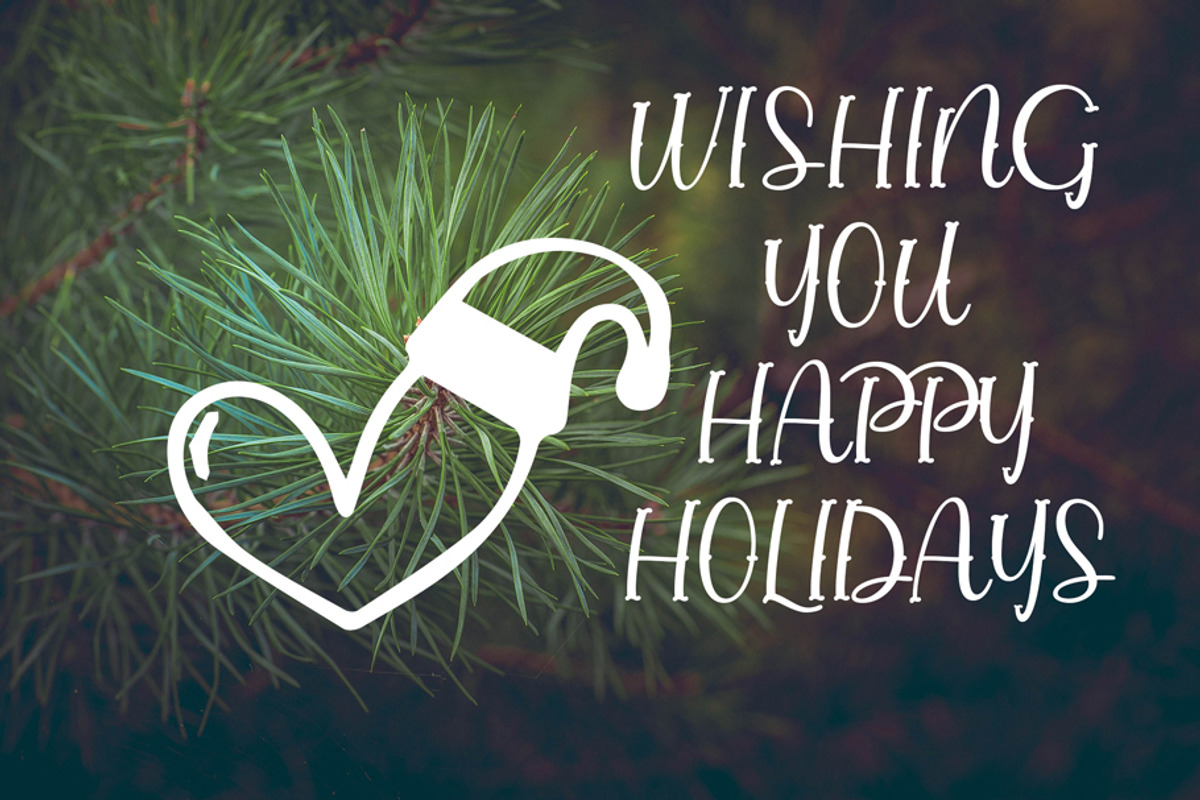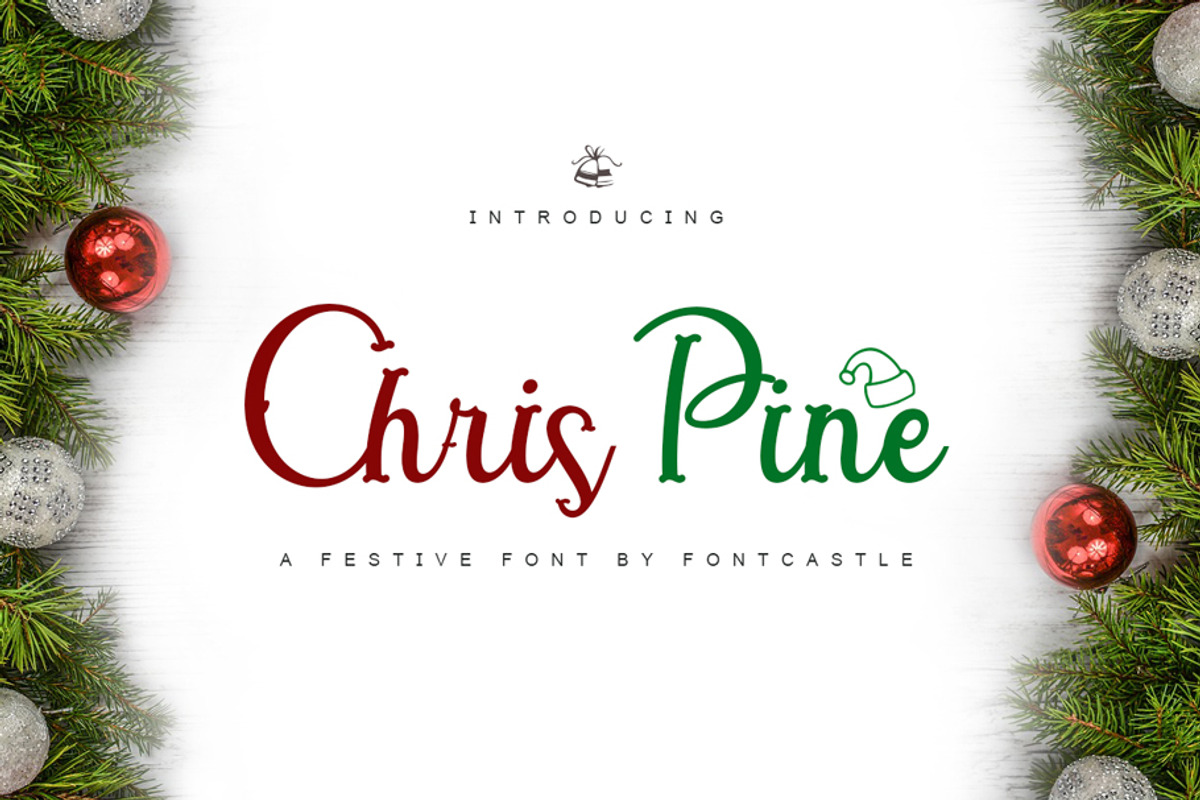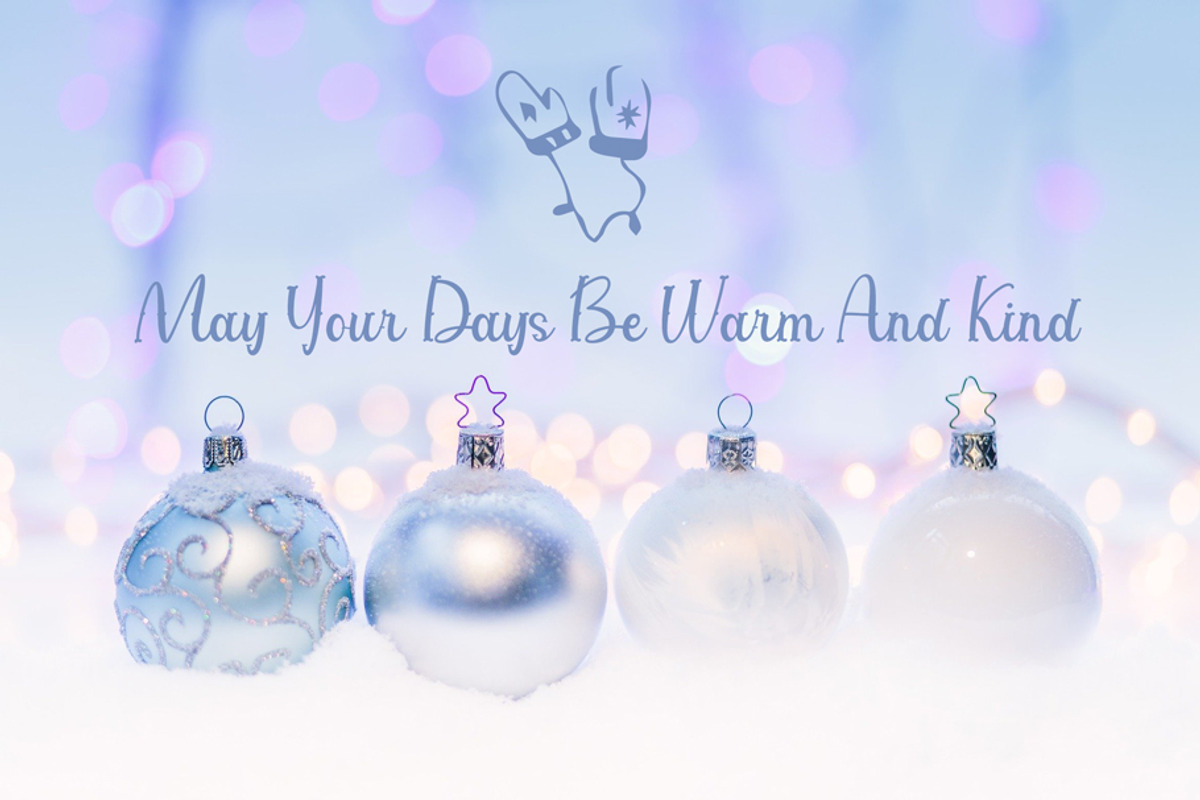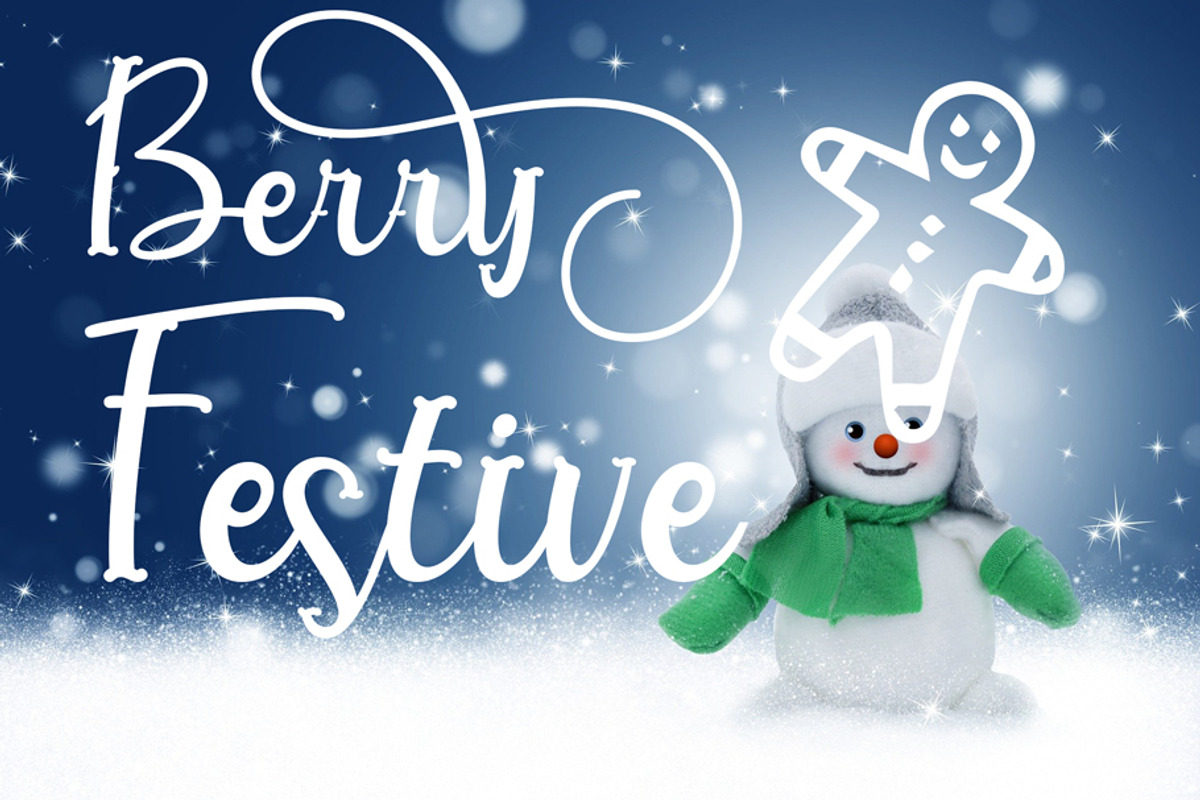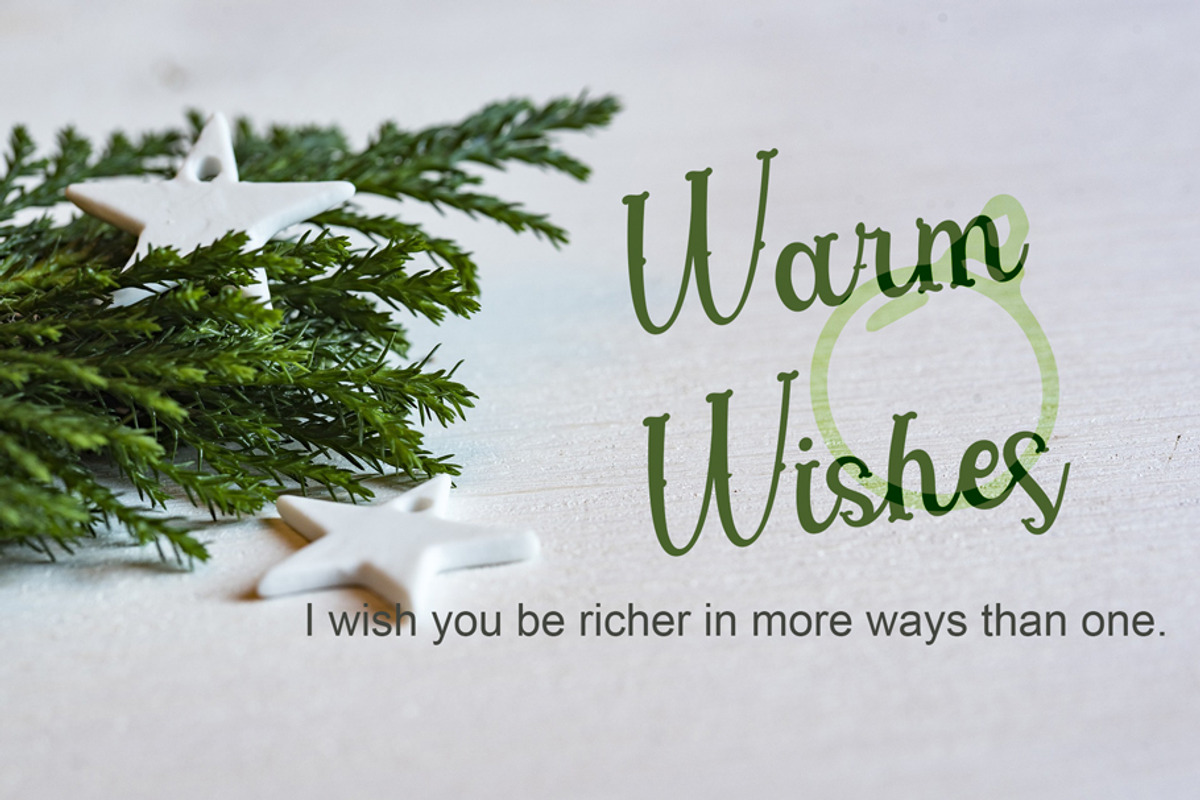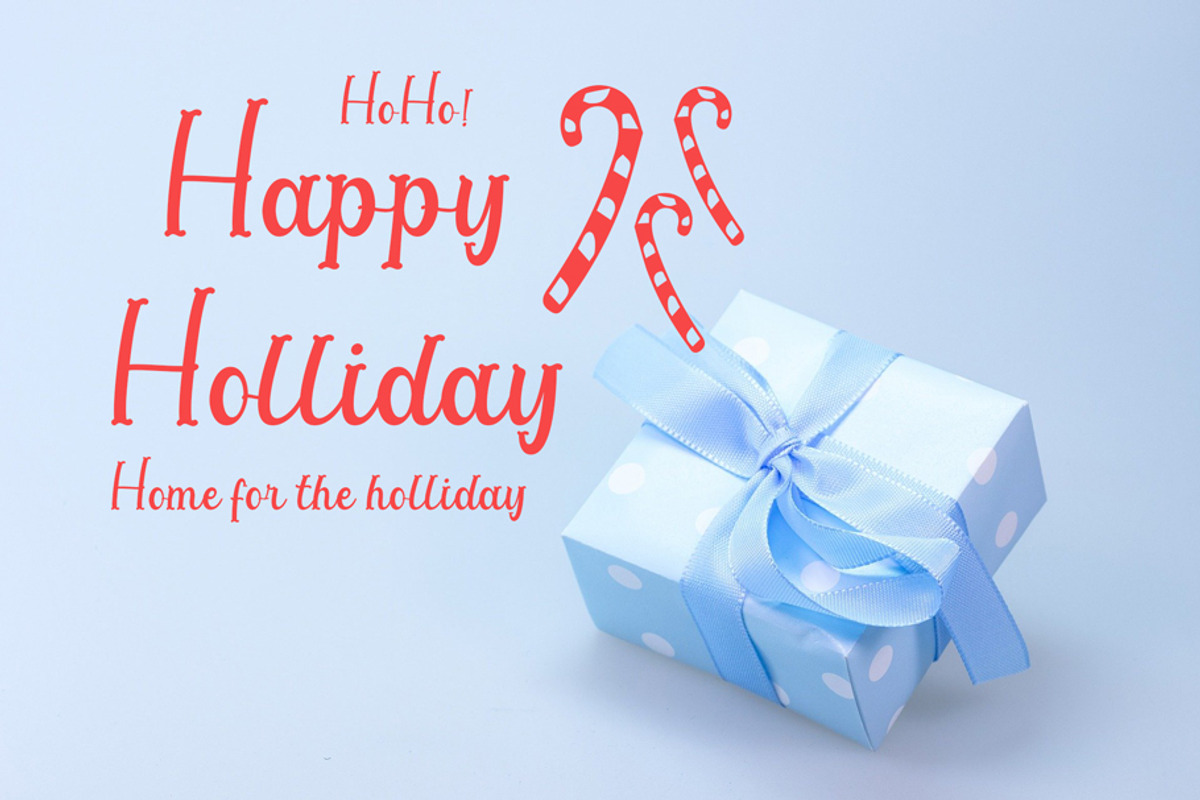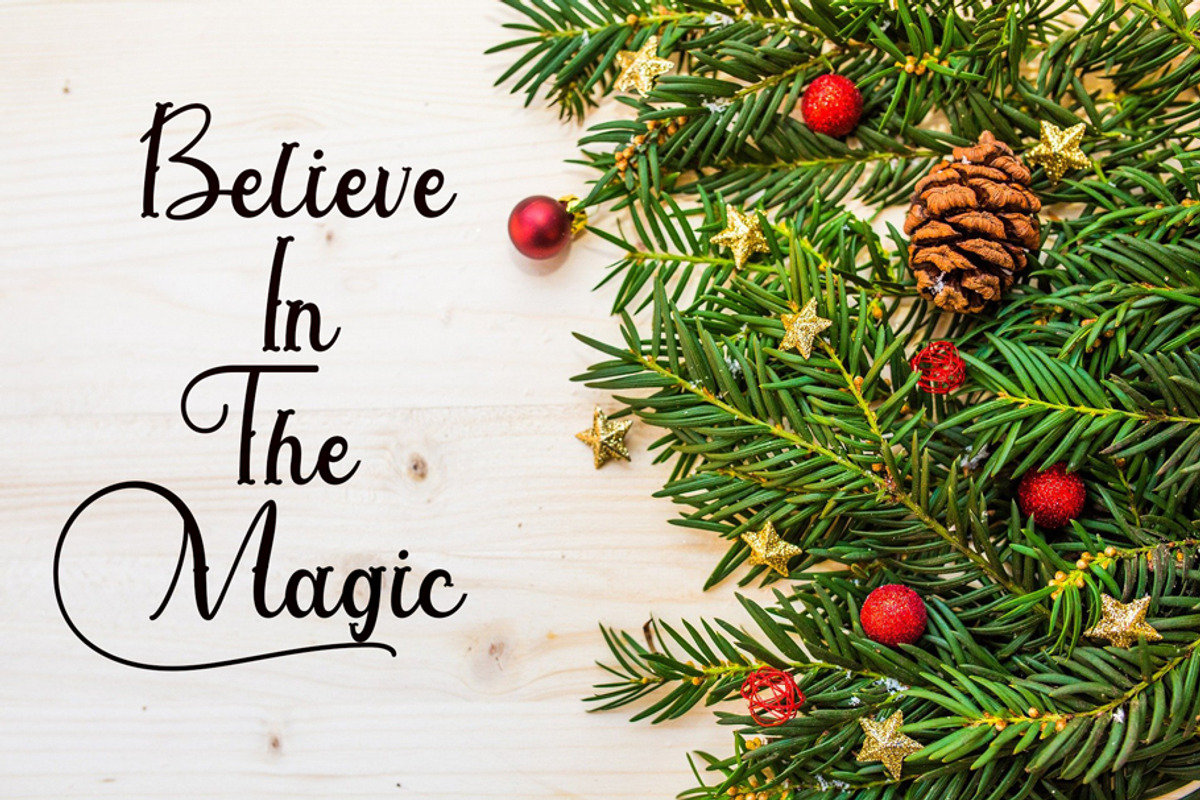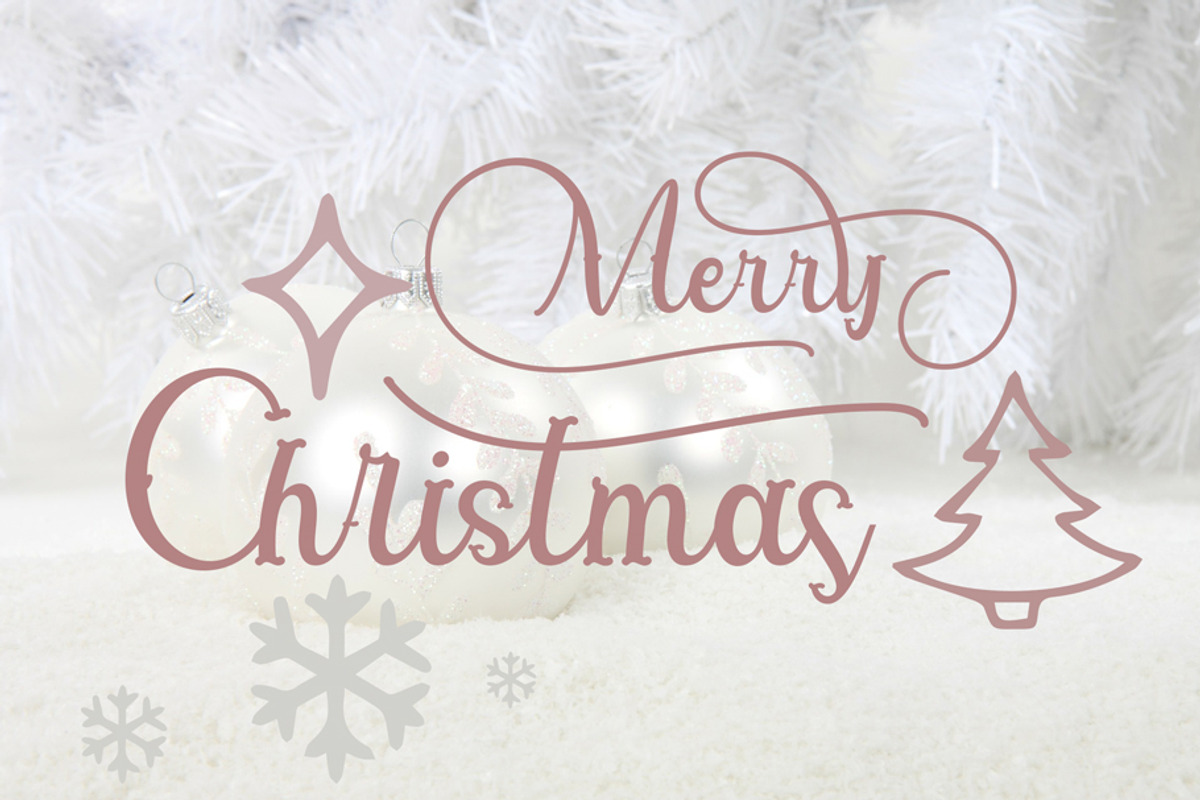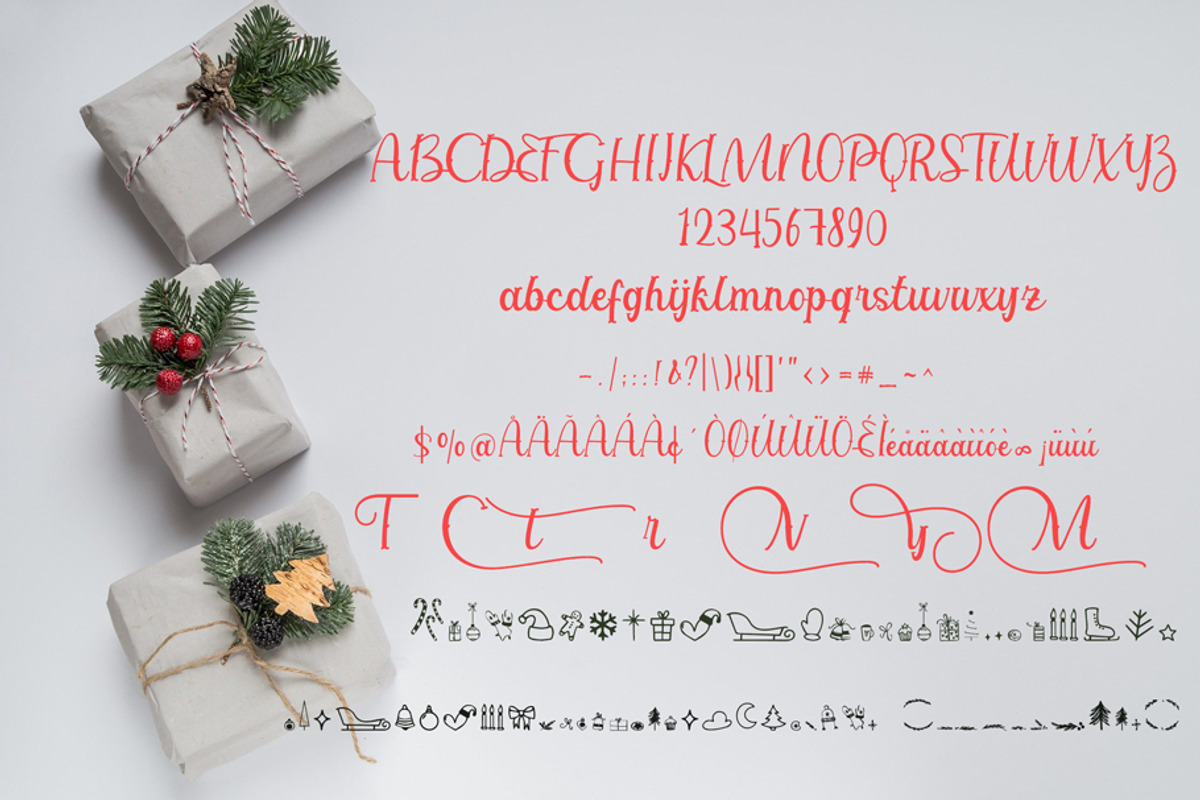
Chris Pine - A Christmas Typeface
Crafted with love, Chris Pine is perfect for winter sale design, branding, logo, invitation, stationery, wedding, product packaging, merchandise, monogram, blog design, game titles, cute style design, Book/Cover Title and more.
Chris Pine Ornament
Just type in any letter - uppercase or lowercase, number - and you will be surprised with a cute Christmas doodle! You can use these doodles to decorate pictures, Christmas cards, gift tags, social media posts, or anything you can dream up!